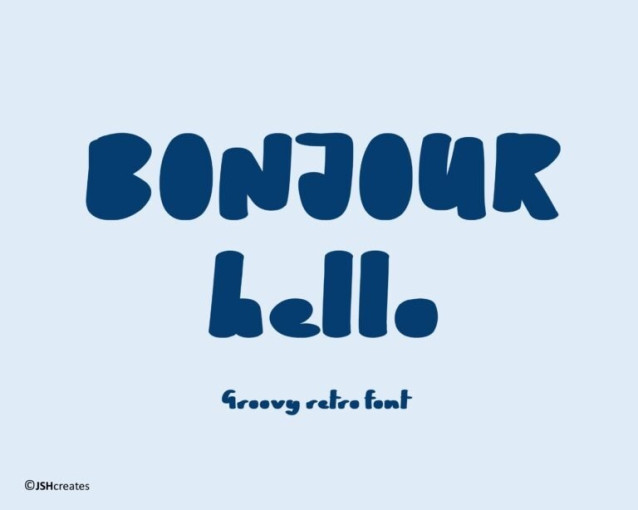
Bonjour Hello Font
Bonjour Hello Font is a simple and modern display font suitable for quotes, logos, headings, titles, and many more. Use it on any of your creative projects, and your designs will become outstanding!